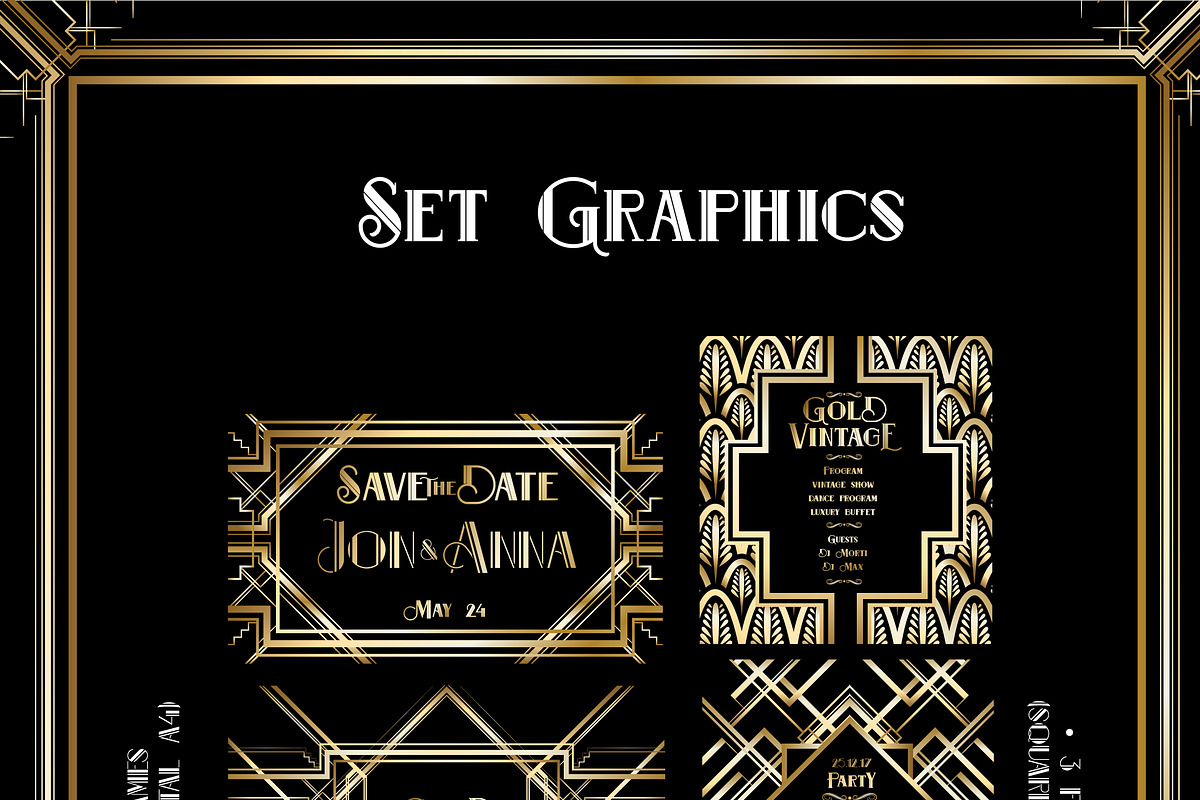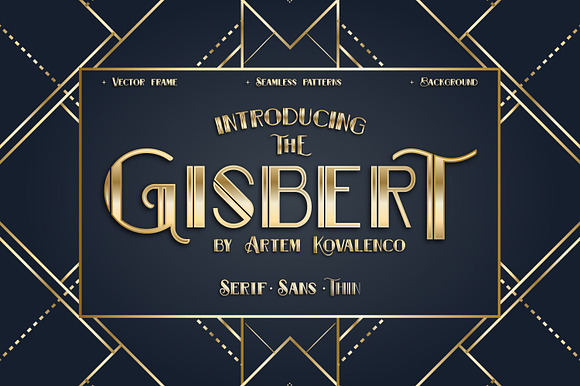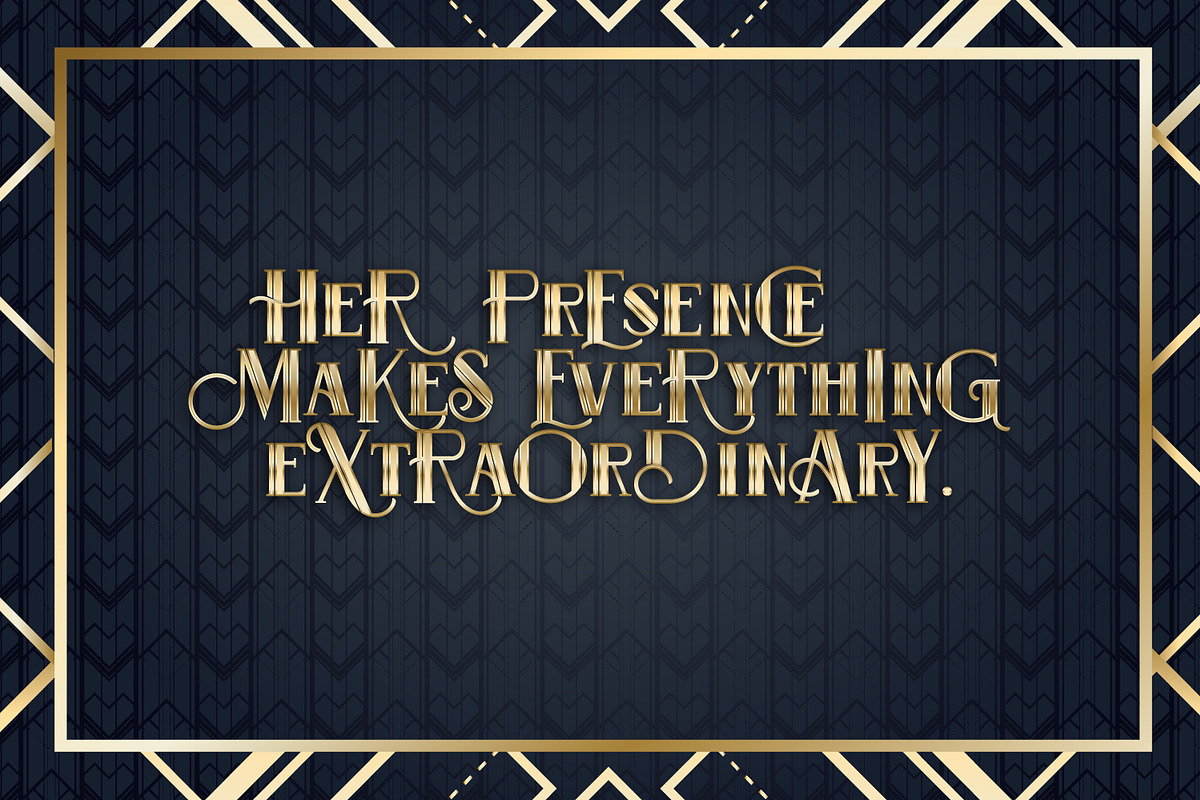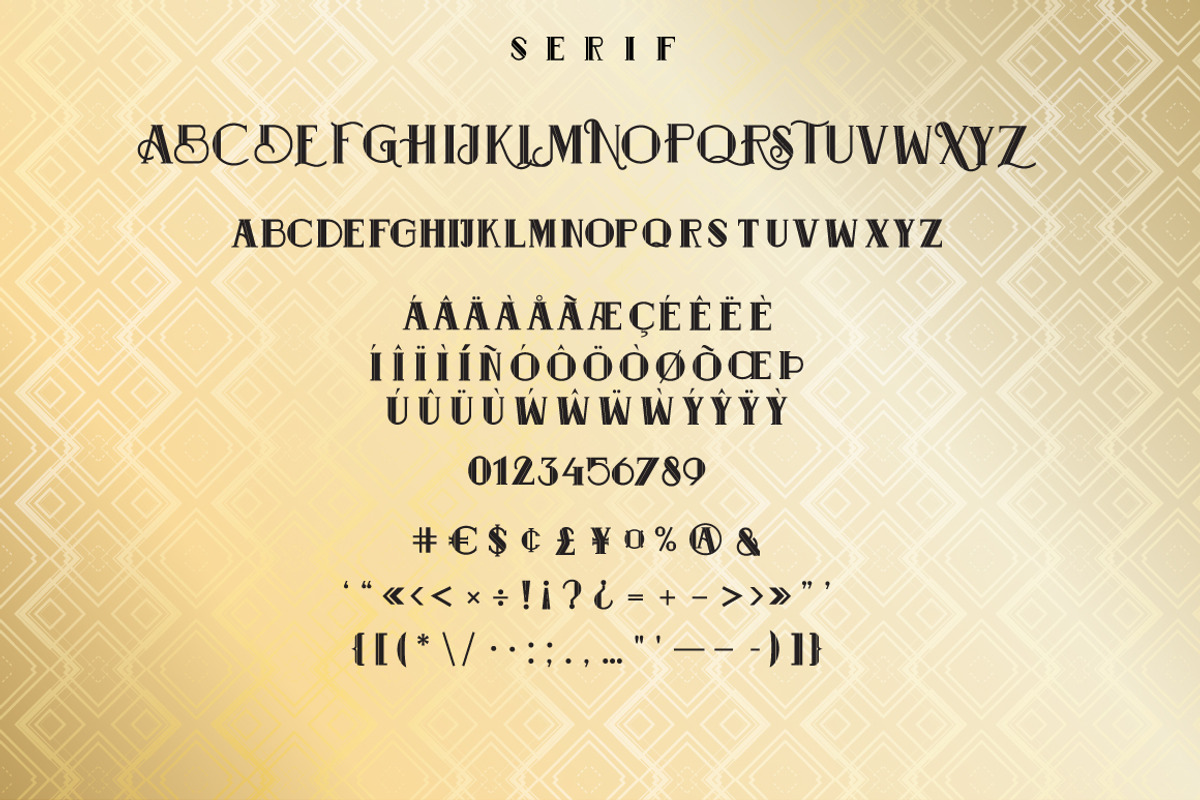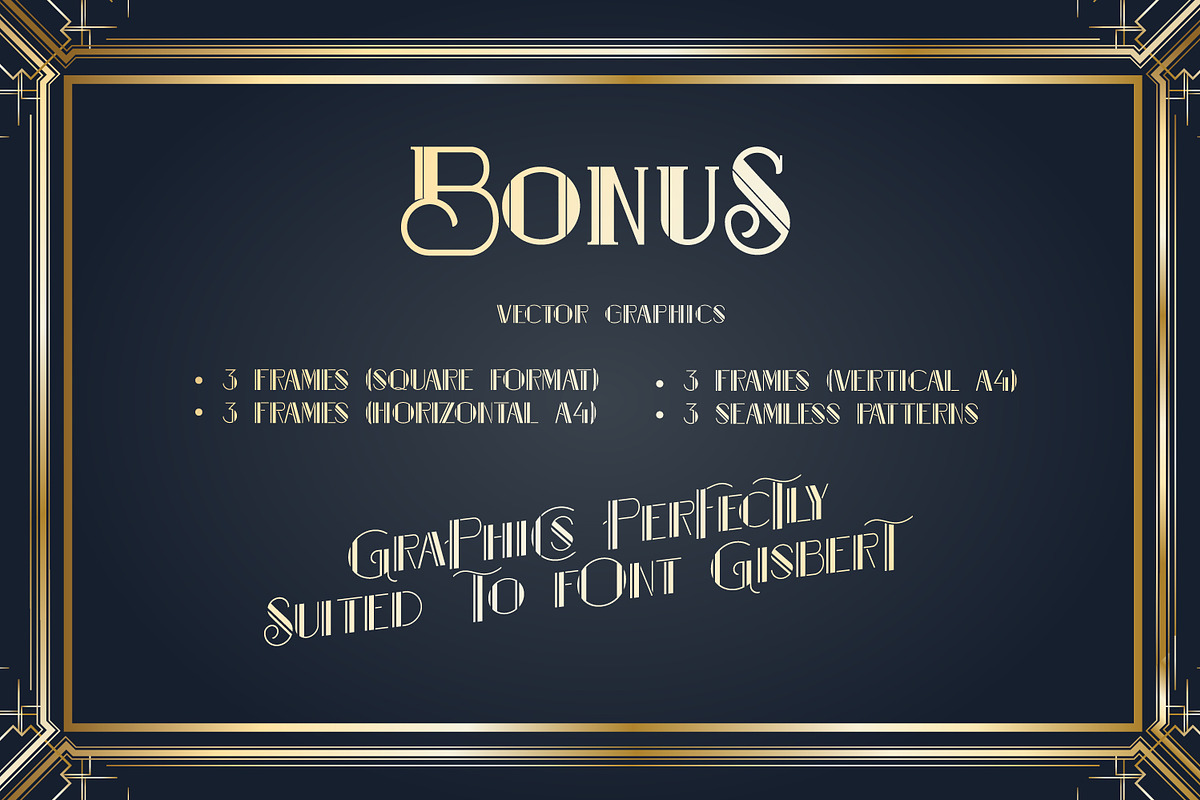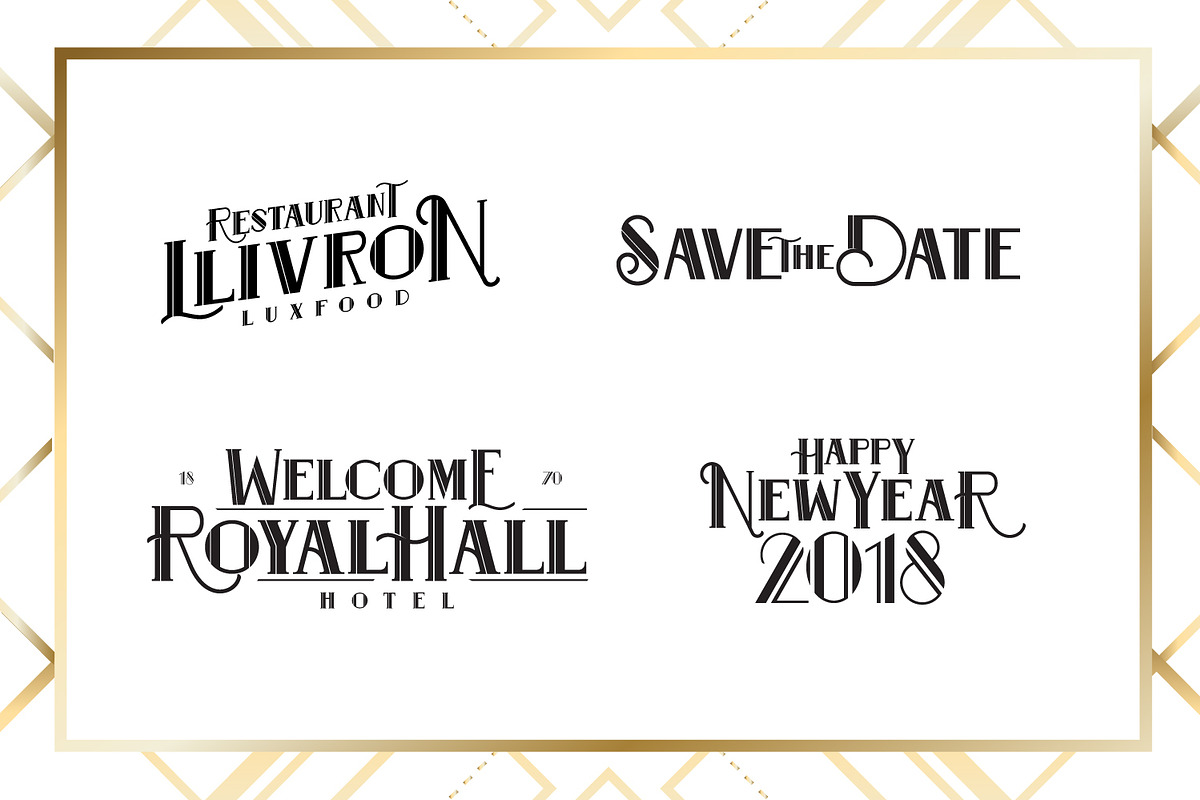
GISBERT font + vector background
Gisbert vintage font and vector graphics in Art Deco style
A new vintage font in the Art Deco style - Gisbert. Ideal for decoration of your vintage and retro products, also works well in logos, posters, booklet, flyer, gift certificate. Together with the Gisbert font, there is a set of cool vector graphics in the Art Deco style. Easy to use graphics and idyllic combining with the font will allow you to fulfill any goals and create a memorable product.
font Gisbert - 3 types : serif. sans. thin.
Lowercase letters a-z
- Gisbert thin
- Gisbert sans
- Gisbert serif